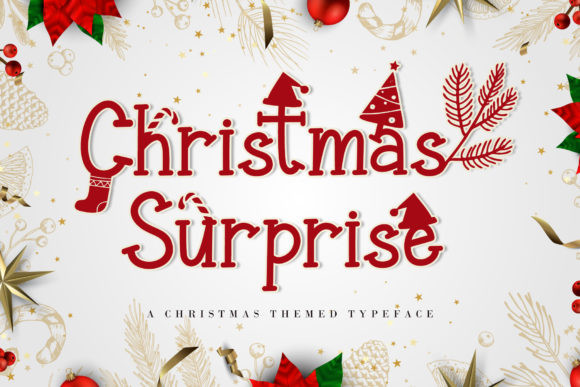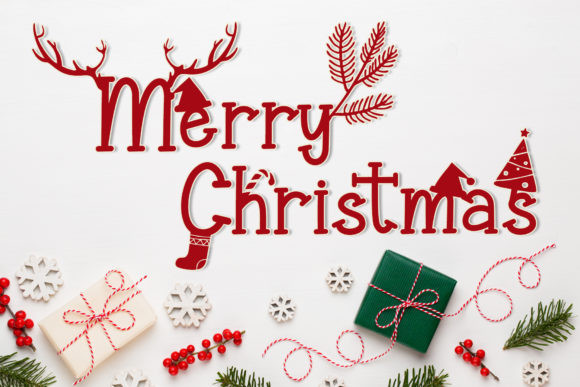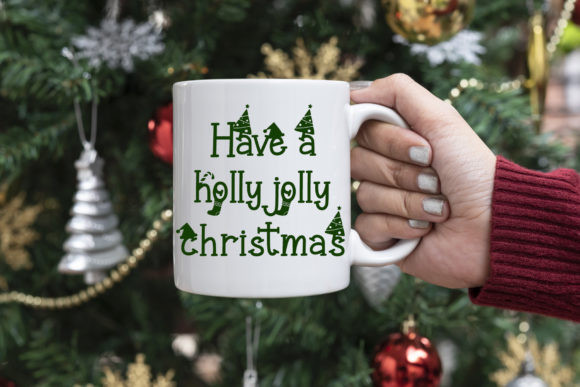
Christmas Surprise Font
Christmas Surprise is a joyful and festive display font. It is ideal for Holiday-themed greeting cards and for any crafting project. This font is PUA encoded which means you can access all of the glyphs and swashes with ease!